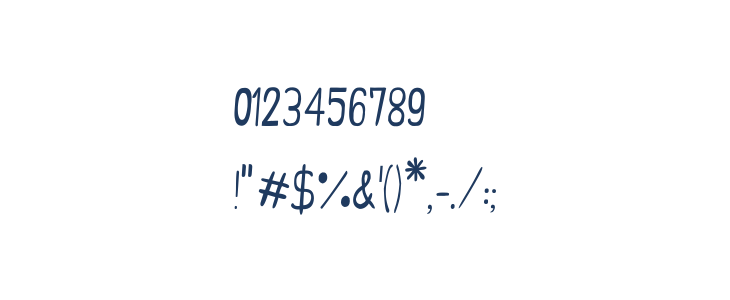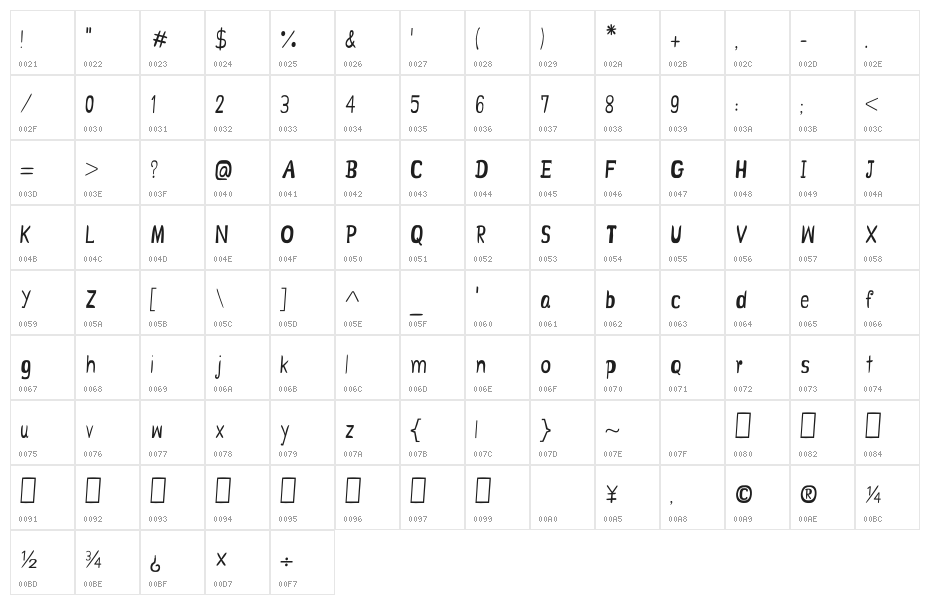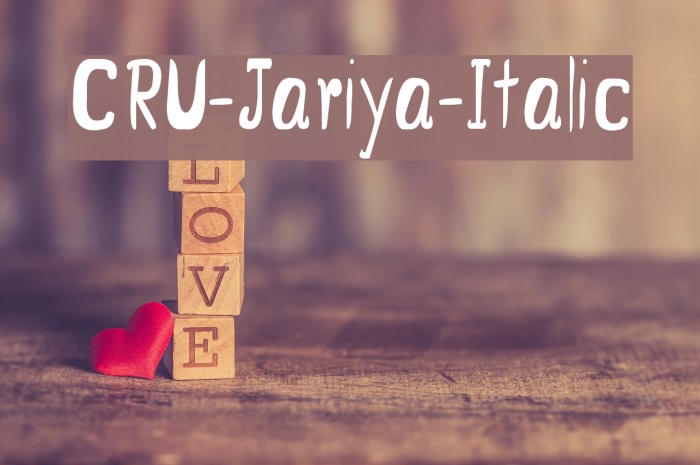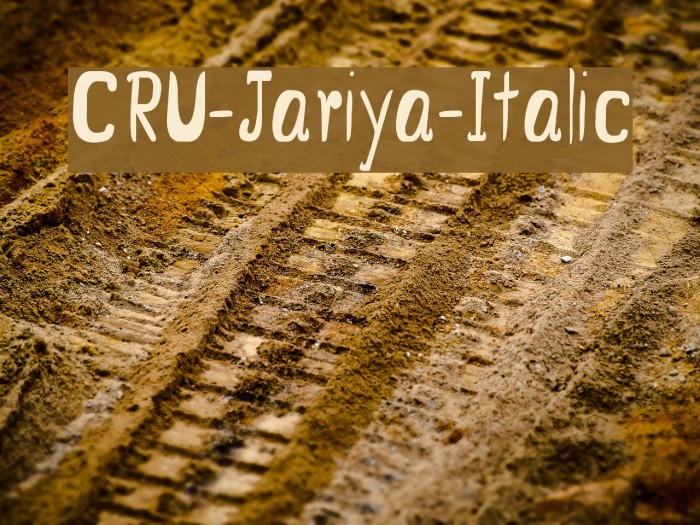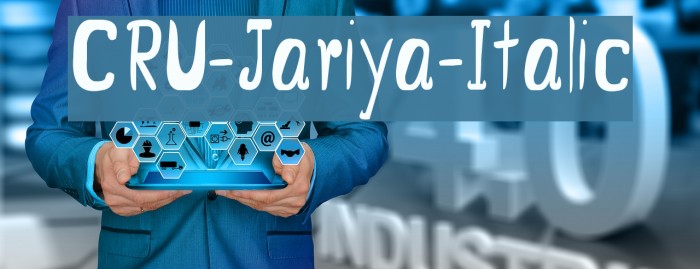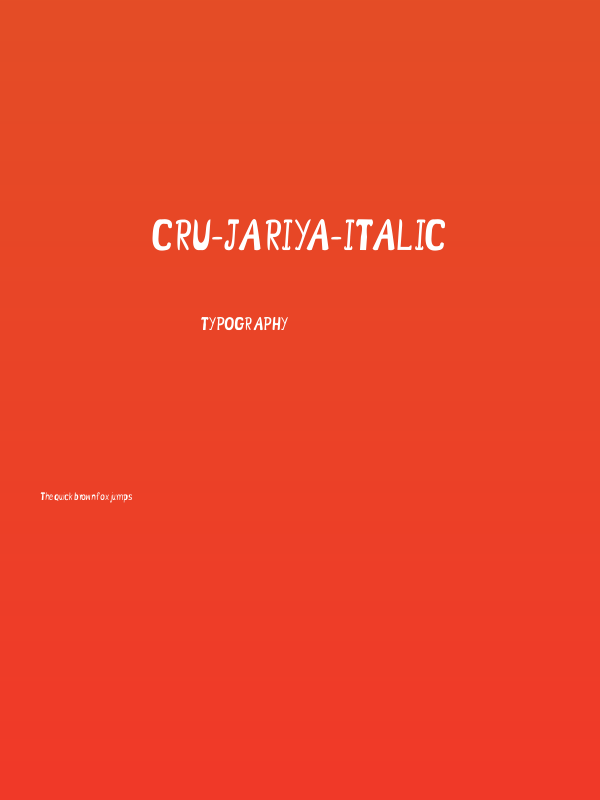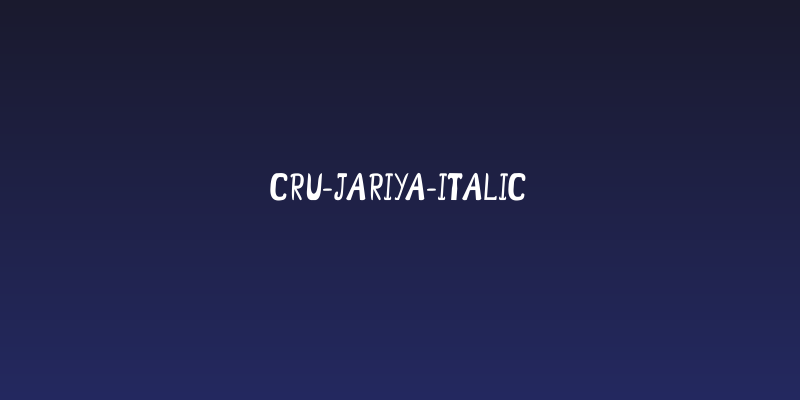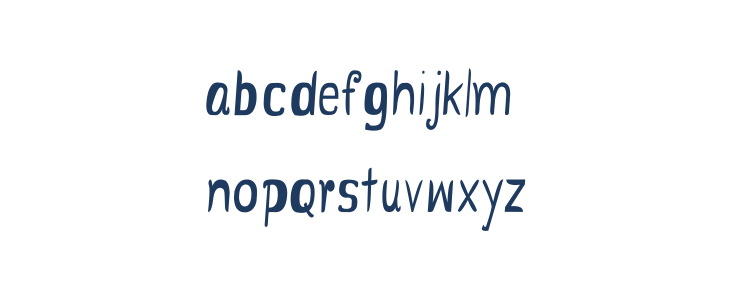
CRU-Jariya-Italic Font
CRU-Jariya-Italic Description
This font features a playful and dynamic style with a slight slant, giving it an italic appearance. The characters are bold and have a hand-drawn quality, with varying stroke widths that add a sense of movement and energy. The uppercase letters are slightly taller than the lowercase, and the numbers are consistent with the overall style. Special characters are included, maintaining the same lively aesthetic. The font's unique character shapes and informal style make it stand out, suitable for creative and casual applications.
| Proposed Projects | Ideal for children's books, creative posters, playful branding, and informal invitations. |